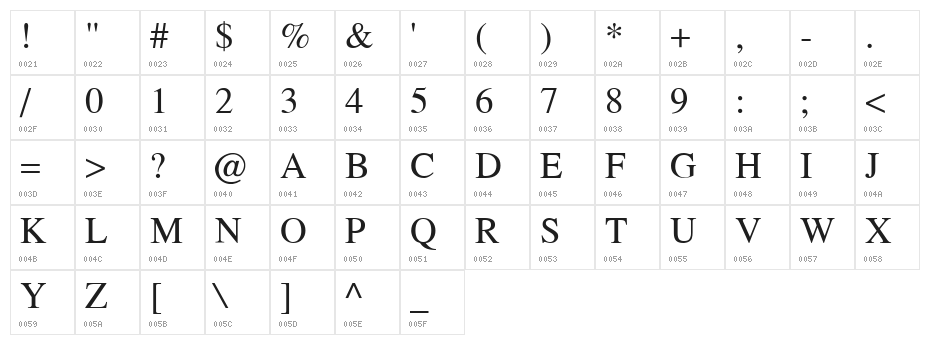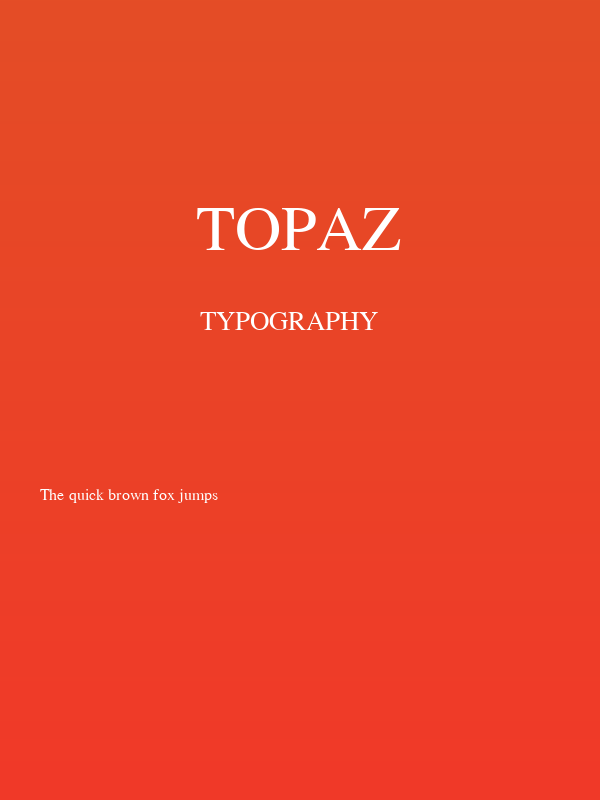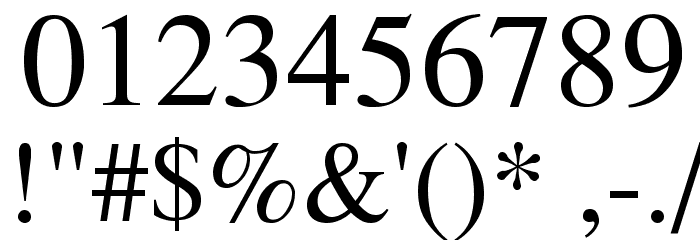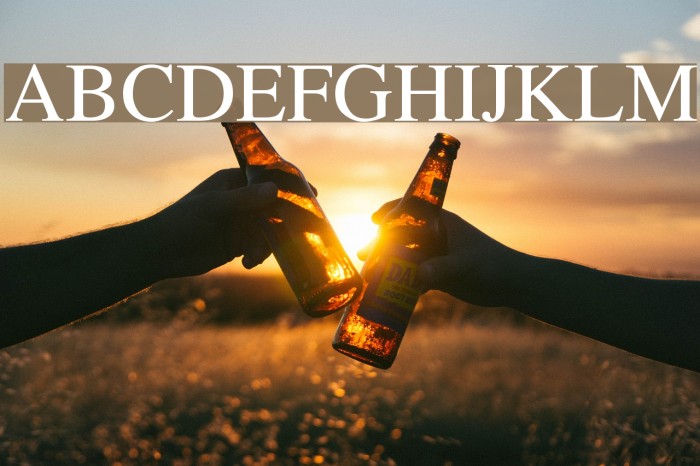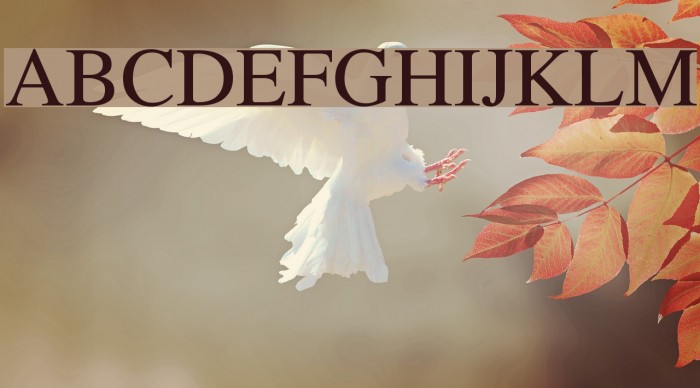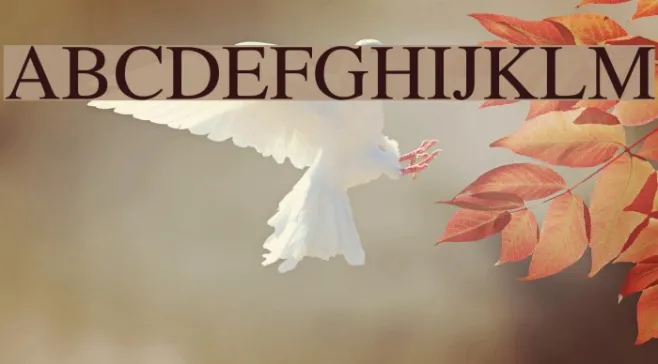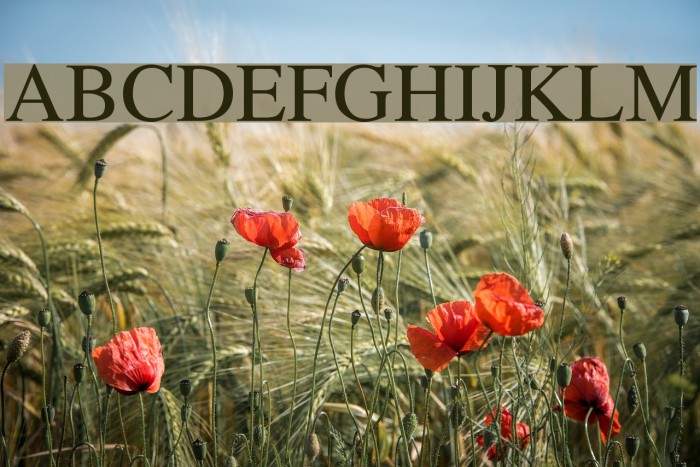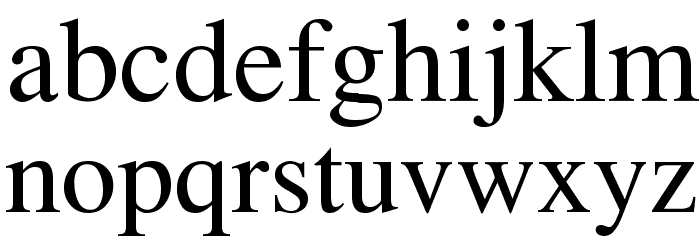
Topaz Font
Topaz Description
This font exhibits a classic serif style with elegant and refined strokes. The uppercase letters are bold and commanding, while the lowercase letters maintain a graceful and balanced appearance. The numerals are clear and distinct, making them easily readable. Special characters are well-integrated, maintaining the overall aesthetic. The font's design is rooted in traditional typography, offering a timeless appeal that is both sophisticated and versatile. Its high contrast between thick and thin strokes adds to its legibility and visual impact, making it suitable for a variety of applications.